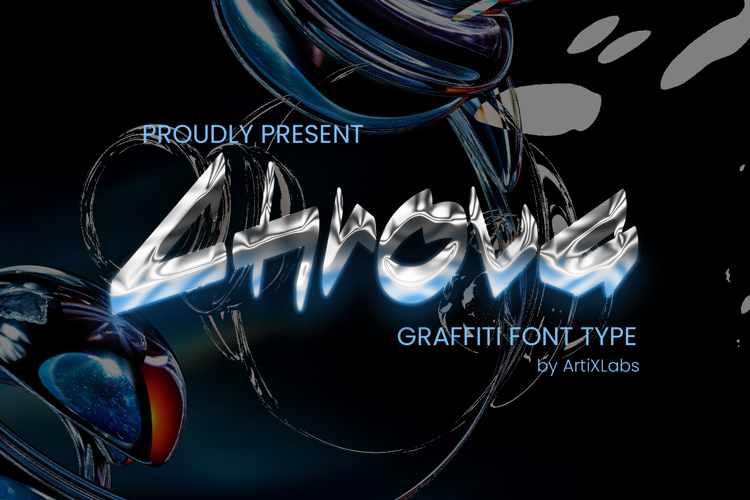
Chrova Font
Chrova is a futuristic cyber graffiti font inspired by chrome textures and digital street culture. With its bold techno strokes and metallic character style, this typeface is perfect for gaming branding, cyberpunk posters, urban fashion labels, YouTube thumbnails, album covers, and tech-inspired visual identities.
If you need a graffiti font with a modern sci-fi edge, Chrova delivers strong personality and standout impact.